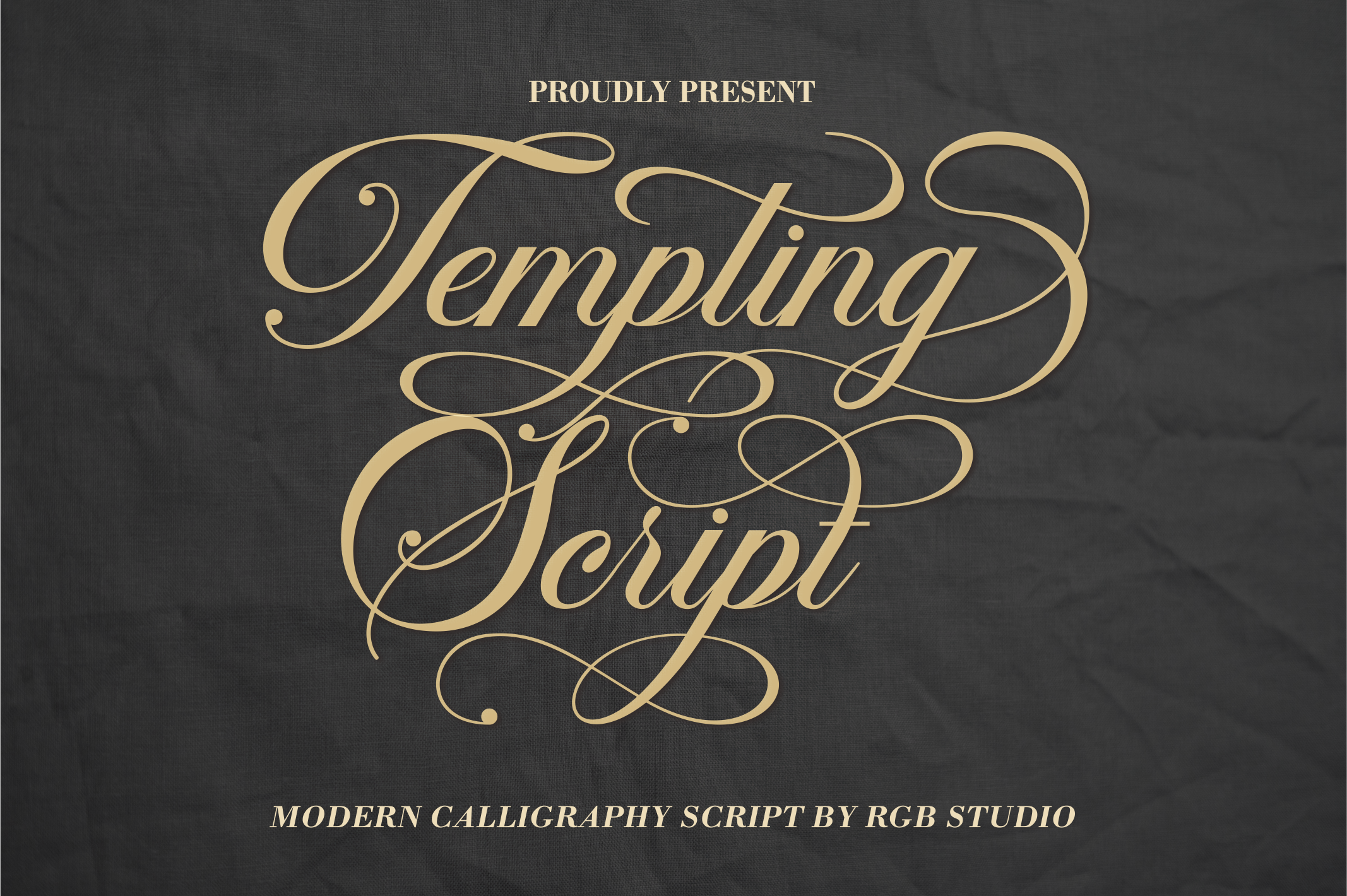
Font name: | Tempting |
Author: | RGB Studio |
Note by RGB Studio | |
Tempting Script is one of the Elegant script fonts that comes with a very beautiful character change, a kind of classic copper decorative script with a modern touch, designed with high detail to present an elegant style. This demo font is for PERSONAL USE ONLY! But any donation are very appreciated. Paypal account for donation : https://www.paypal.com/paypalme/payrgbstudio Link to purchase full version and commercial license : https://crmrkt.com/0P8oMy For Extended License or Corporate License Please Reach Us on email : rgbstudio71@gmail.com if you need something! Happy Designing! Thank you. Regards, RGB Studio |